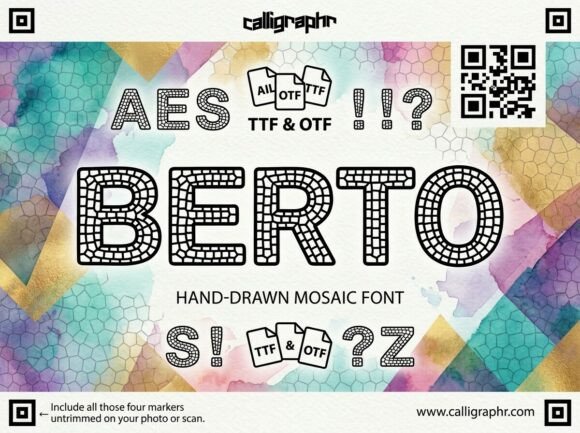
The Berto Font: A Stunning Decorative Display Font to Elevate Your Designs
Here’s what I love about the Berto Font:
- ✨ Unique and artistic design that’s perfect for making a statement
- ✅ Professional and polished finish that’s suitable for high-end clients
- 🎉 Versatile enough for bold headlines, artistic logos, and creative packaging
And here are some quirks to keep in mind:
- ⚠️ The Berto Font is an ALL-CAPS (Uppercase Only) display typeface, which means it doesn’t include lowercase letters.
- 🤔 While it’s a stunning font, it may not be the best choice for body text or long-form content.
The Designer Inspiration Behind Berto Font
The Berto Font was designed with the intention of creating a unique and artistic display font that could make a statement. The designer wanted to create a font that was both elegant and creative, with a strong visual personality. The result is a font that’s perfect for designers, crafters, and creative hobbyists who want to add a touch of sophistication to their designs.
| Font Name | Berto Font |
| Author | Bluebird |
| Is the Berto Font suitable for body text? | No, the Berto Font is a display font designed for headlines, logos, and decorative initials. |
| Does the Berto Font include lowercase letters? | No, the Berto Font is an ALL-CAPS (Uppercase Only) display typeface and does not include lowercase letters. |